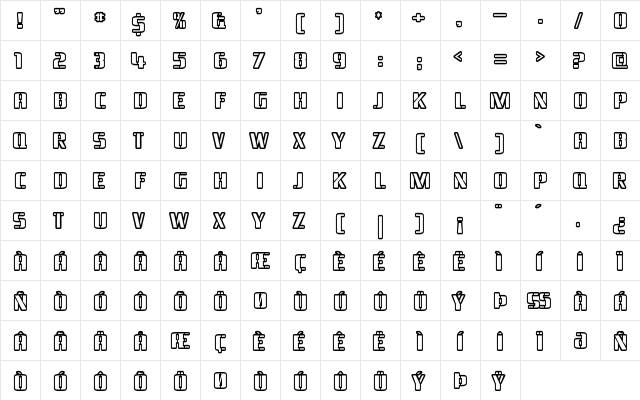
Braeside Outline Regular
Design Context for Braeside Outline Typeface
Braeside Outline brings ornamental detail and strong personality to headlines and identities, where visual impact matters more than quiet functionality.
Font Pairing: Pair with a clean neutral sans-serif for body copy to let Braeside Outline's character lead without overwhelming the composition.
Pro Tip: Use Braeside Outline exclusively at display sizes — it was designed to be seen, not read at length. Let a neutral companion handle body copy.